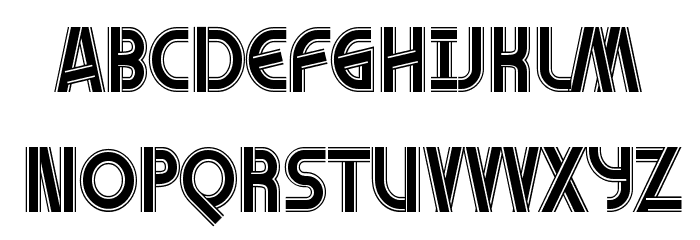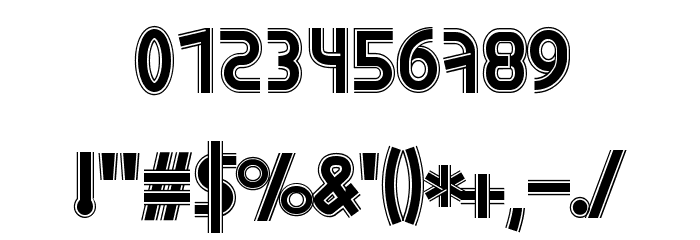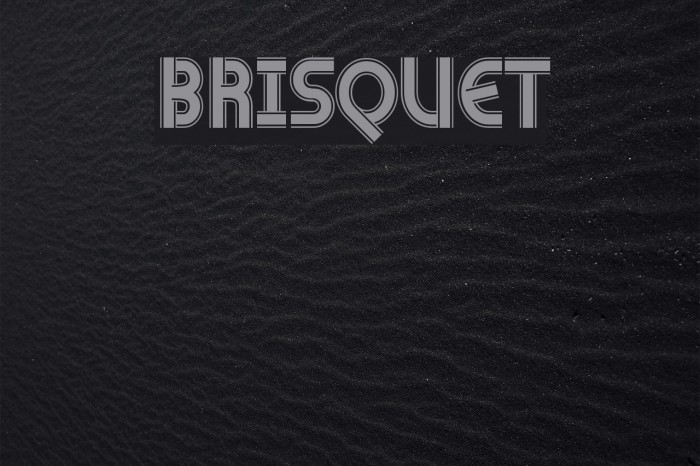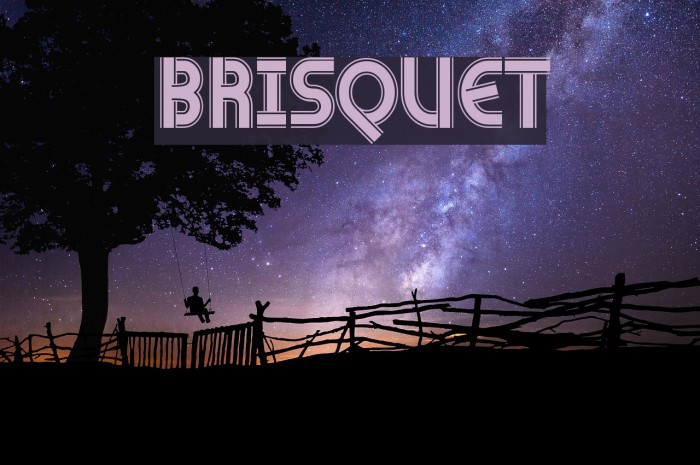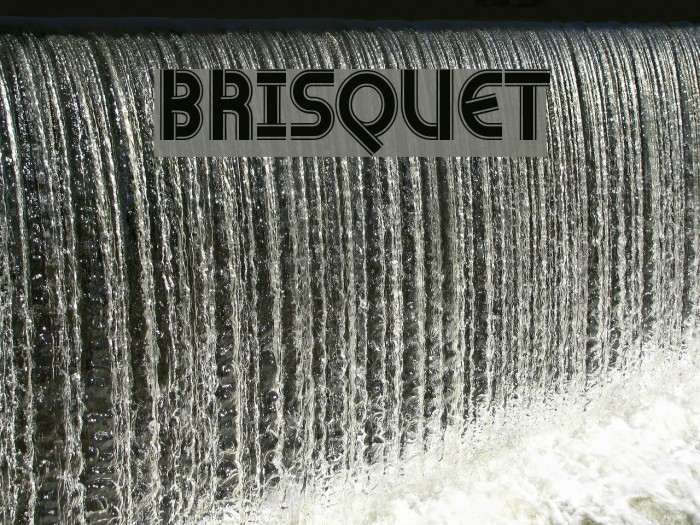
Brisquet Font
This font features a bold, geometric design with a strong emphasis on angular lines and sharp edges. The characters are constructed with a double-line effect, creating a sense of depth and dimension. The uppercase letters are particularly striking, with a futuristic and industrial feel. The numbers and special characters maintain this aesthetic, ensuring a cohesive look across all glyphs. The font's unique style makes it stand out, offering a modern twist on traditional geometric fonts.
A bold, geometric font with a double-line effect and futuristic style.
- Proposed Projects: Ideal for branding, posters, and digital media where a modern and striking appearance is desired.